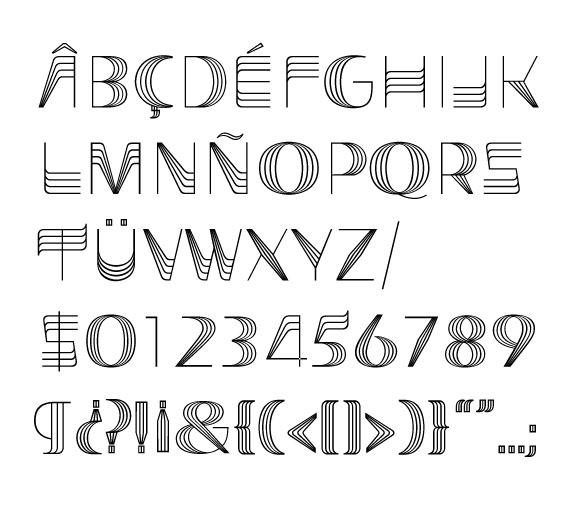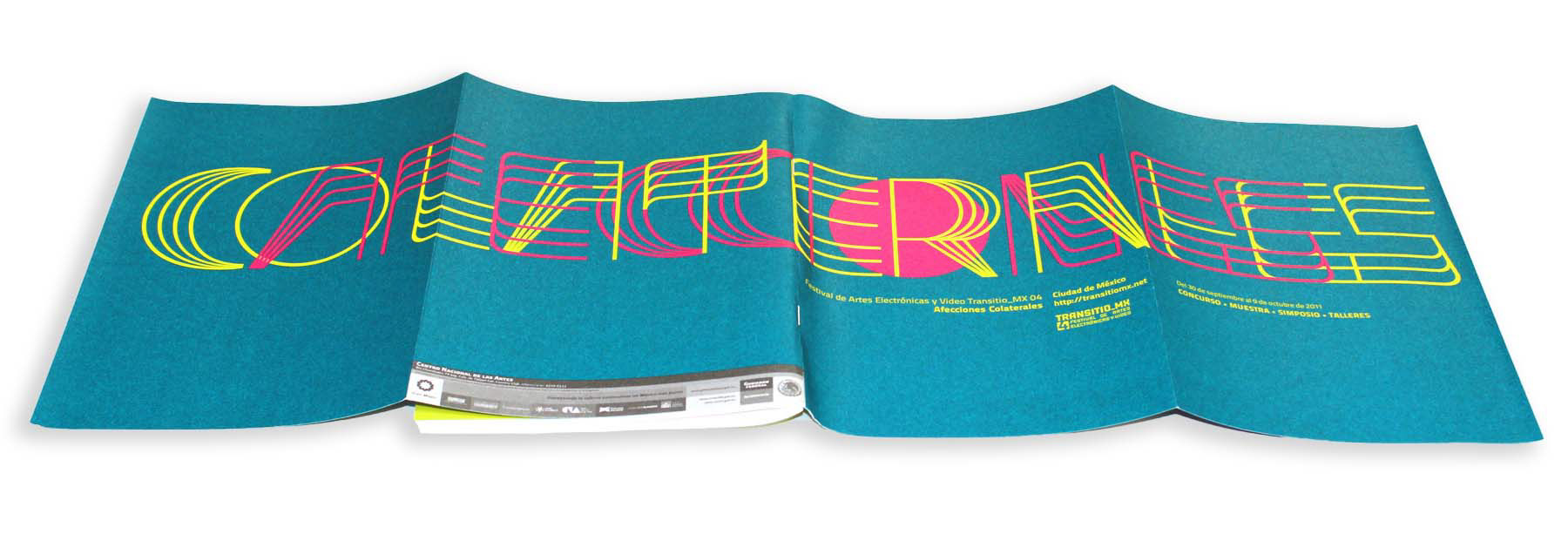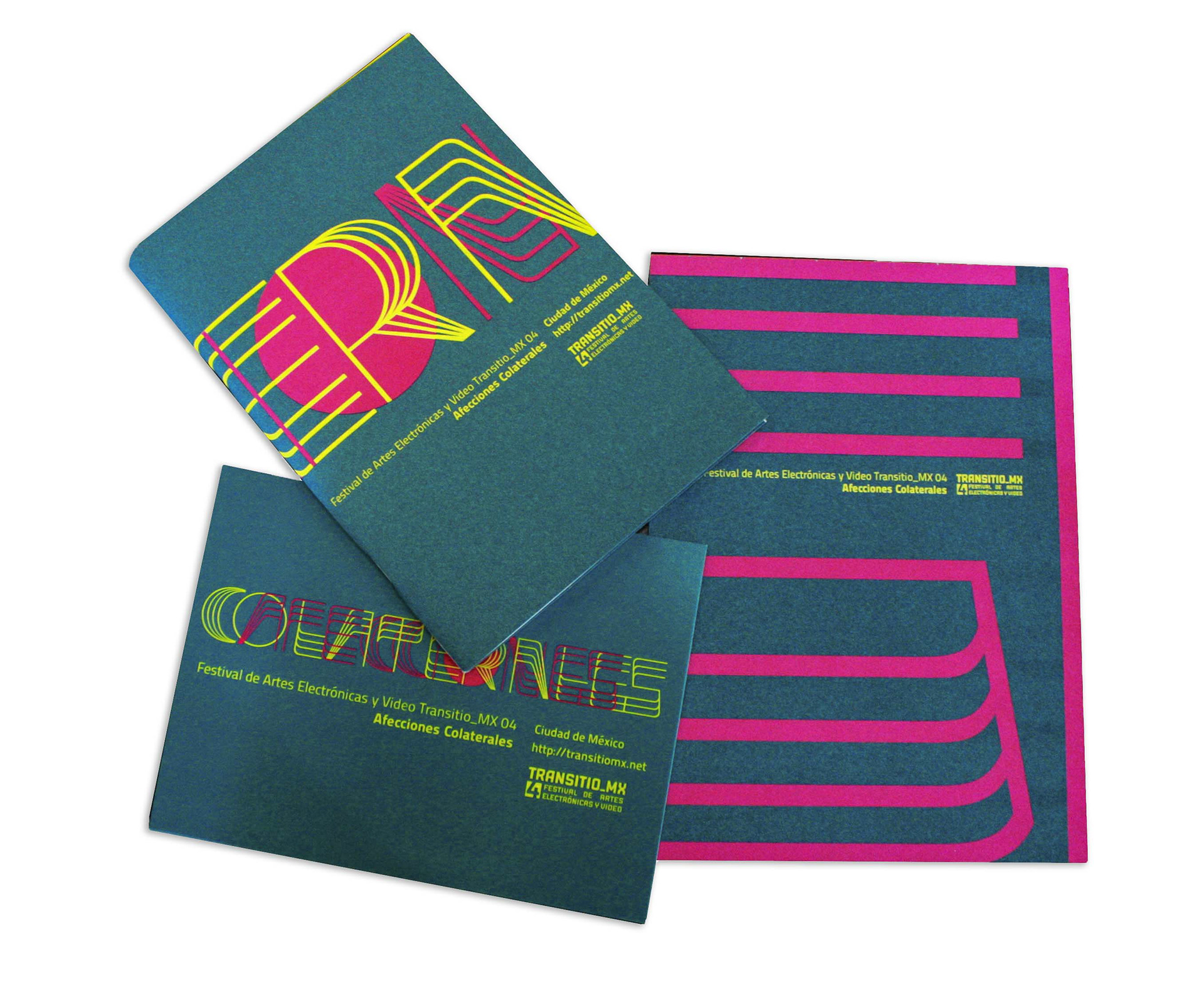
International Festival of Electronic Arts and Video Transitio_mx 04, Colateral Affection. This Festival is the most important platform in Mexico for the expression and analysis of contemporary practices of artistic creation with electronic media and digital culture. It has a biennial edition with three core activities: a symposium, a exhibition and a contest.
The main concept of the fourth festival was the affected image and the instant effect produced by a vibrant image, these concepts are reinforced by the play of colors and the overlapping of the Logo text. The typography is used as a graphic resource in the image of the festival.
Examples of implementation on canvases, banners in the Cenart